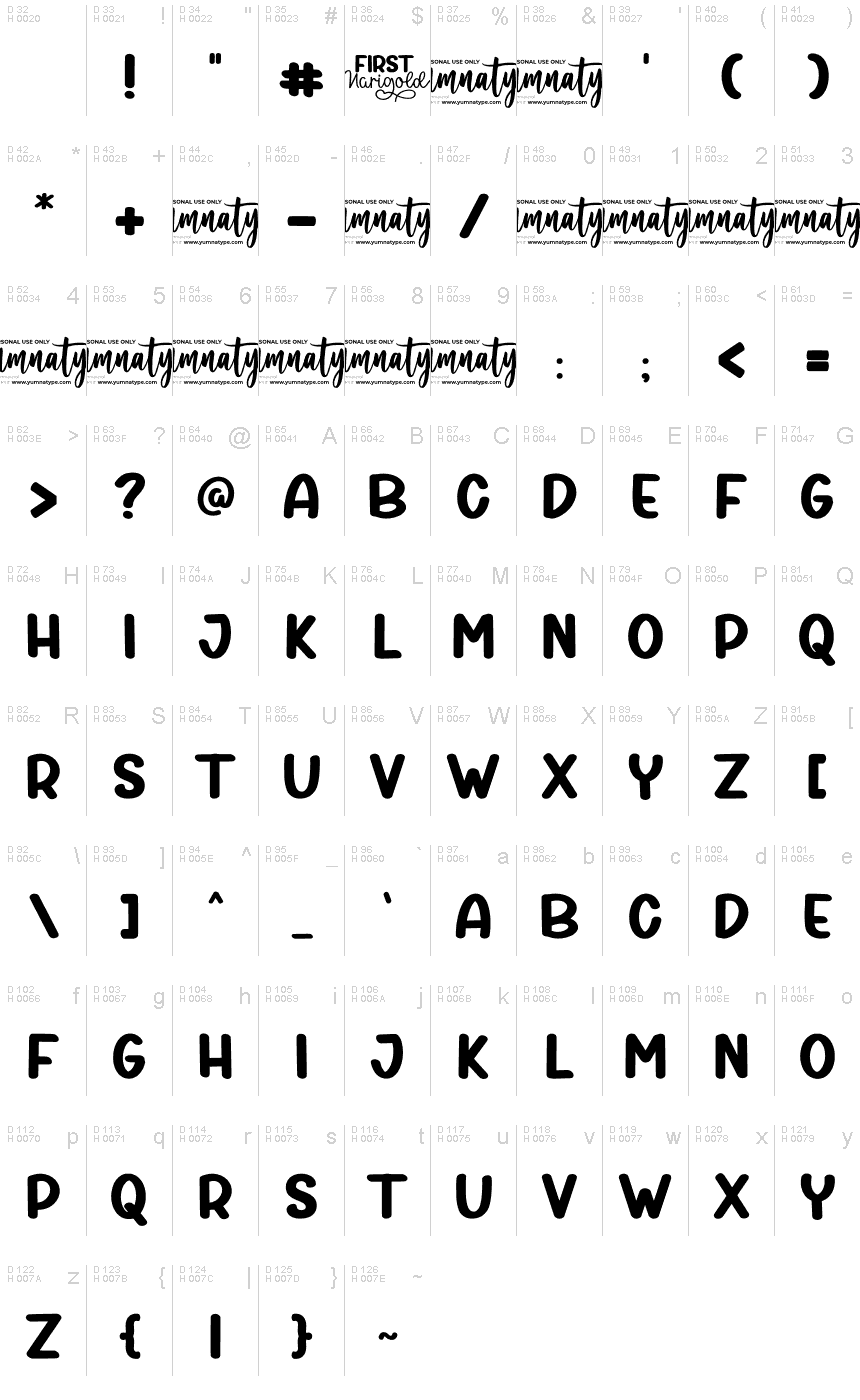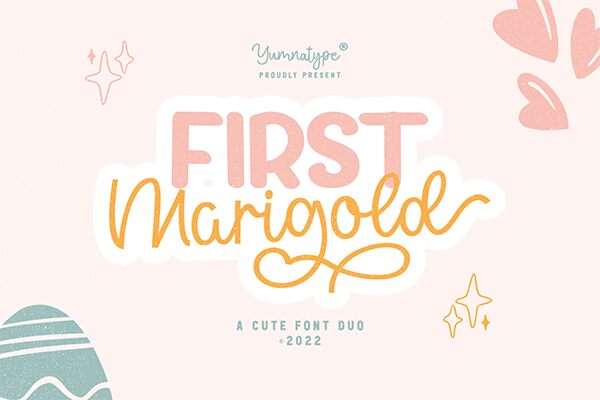
First Marigold Regular
First Marigold, designed by Yumna Family, is a delightful handwritten font with a bold weight.
This cute typeface captures the essence of whimsy and playfulness, making it perfect for children's books, greeting cards, and invitations. Its uppercase letters lend themselves well to creating eye-catching headlines or branding materials that exude charm and creativity. With First Marigold, your designs will bloom with character and captivate any audience.
Let your imagination run wild as you infuse your projects with the joyous spirit of this endearing font.